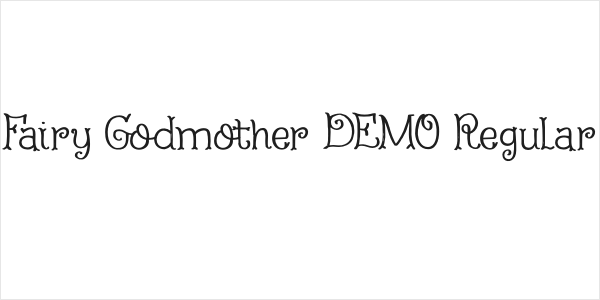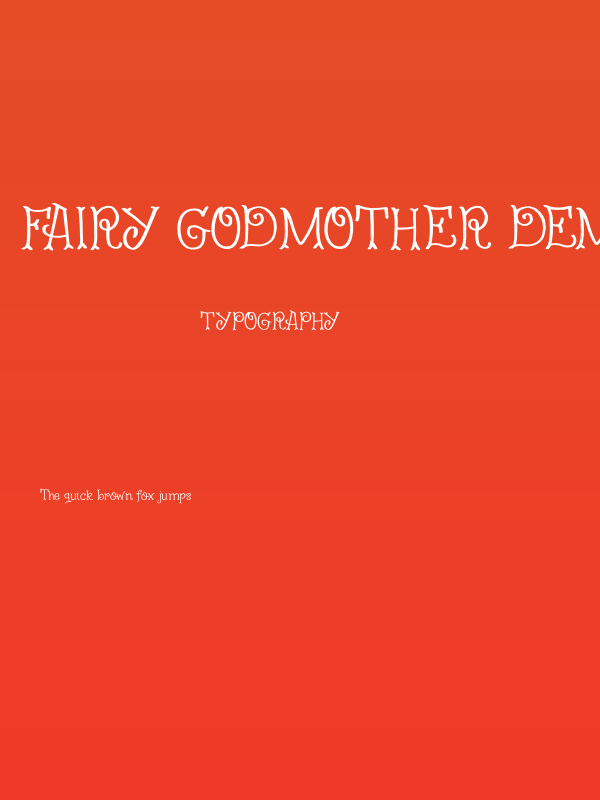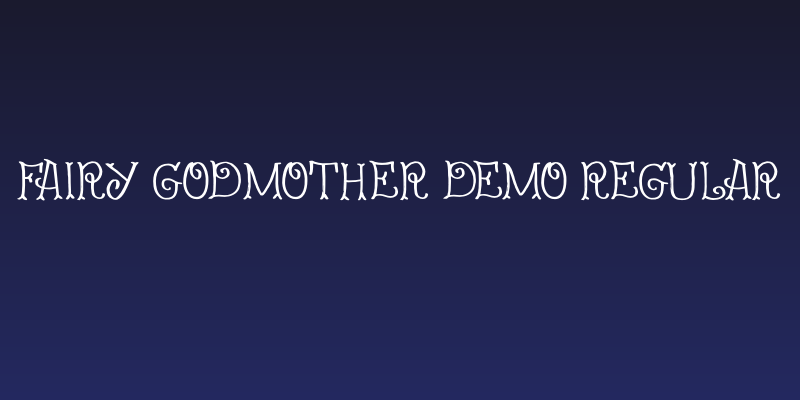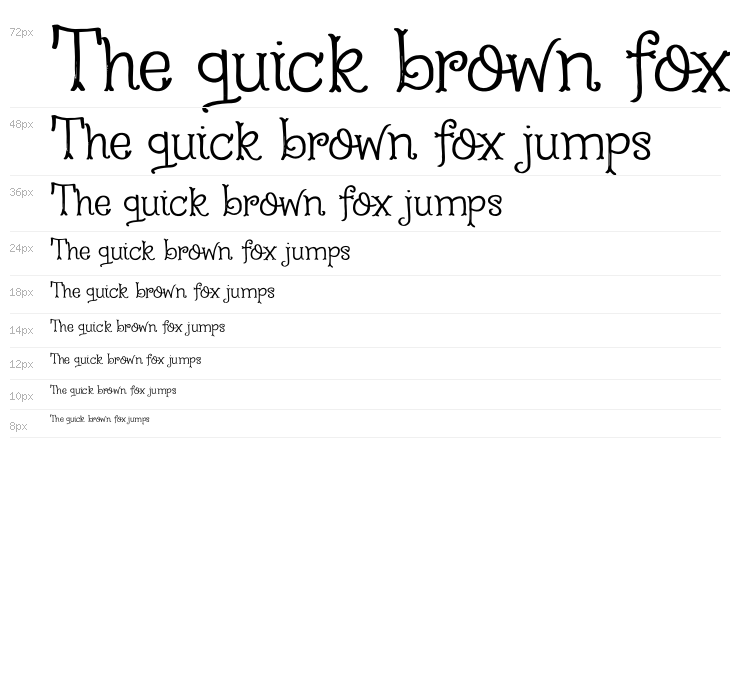
Fairy Godmother DEMO Regular Font
Fairy Godmother DEMO Regular Description
This whimsical and enchanting typeface features a playful, fairy-tale inspired design. The characters are adorned with delicate, decorative elements that evoke a sense of magic and wonder. The uppercase letters are bold and slightly irregular, giving them a hand-drawn appearance, while the lowercase letters maintain a consistent style with charming flourishes. The numbers and special characters are equally fanciful, incorporating star and wand motifs that enhance the magical theme. This font is perfect for projects that require a touch of fantasy and creativity.
| Proposed Projects | Ideal for children's books, fantasy-themed invitations, magical event branding, and whimsical posters. |